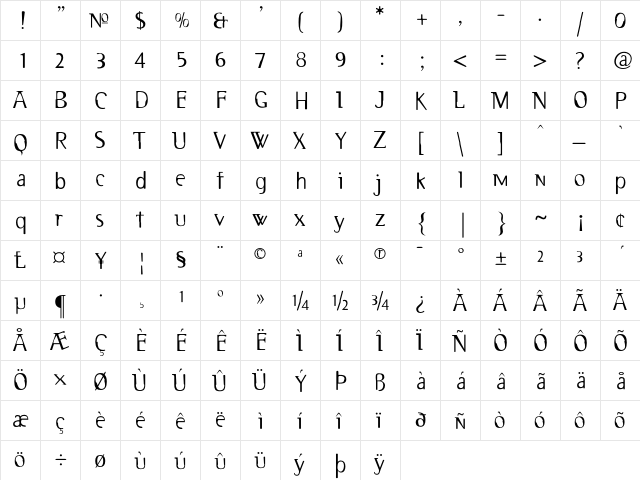
2RebelsDeux Regular
Design Context for 2RebelsDeux Typeface
2RebelsDeux takes a measured approach to typography — its balanced proportions and neutral character make it a reliable workhorse for both digital and print work.